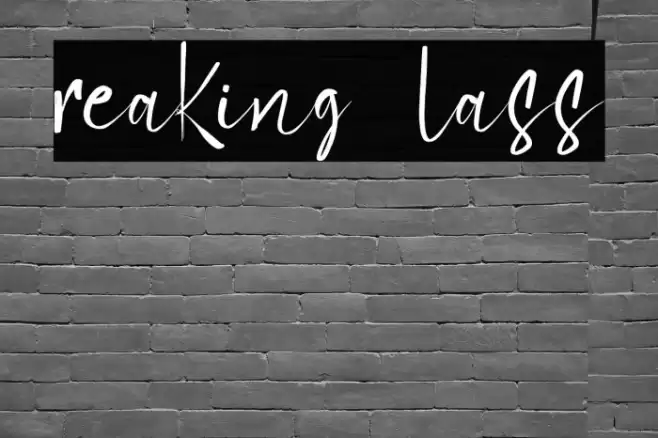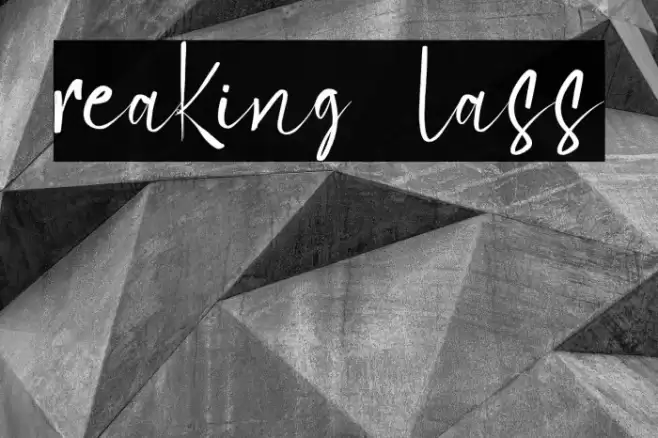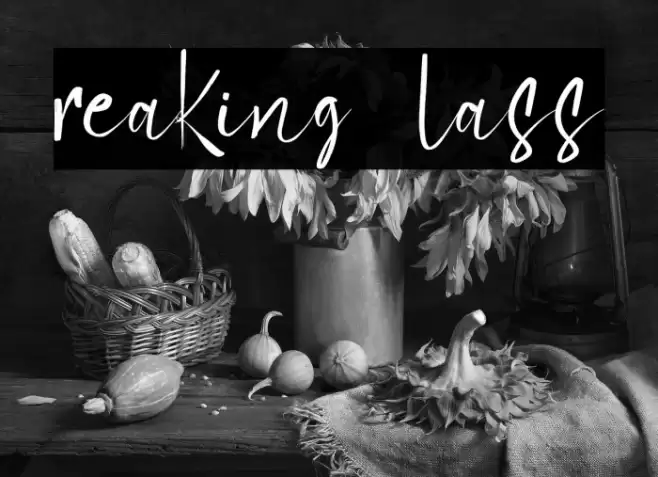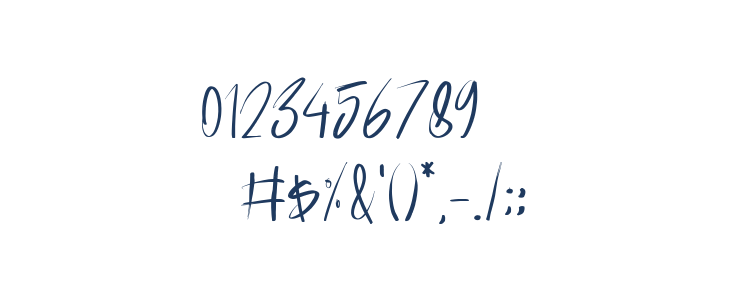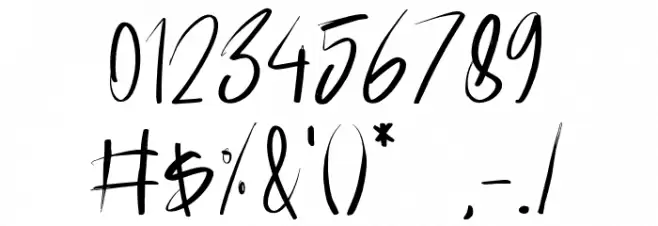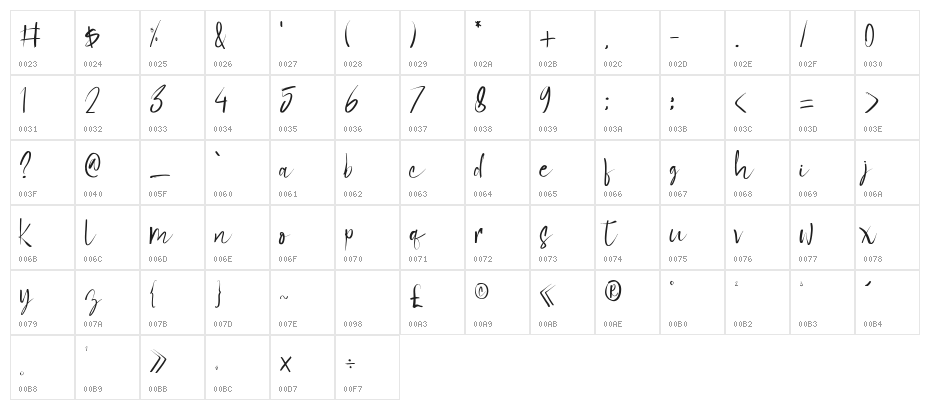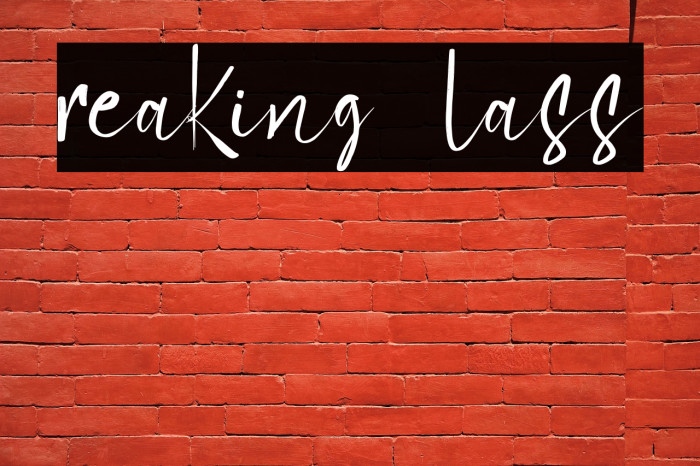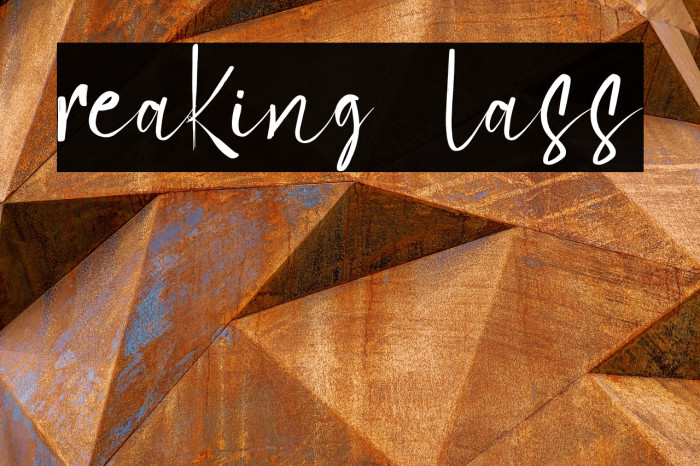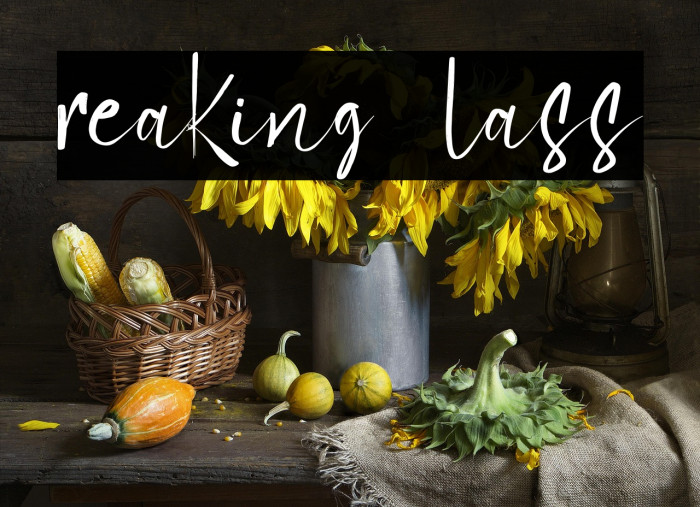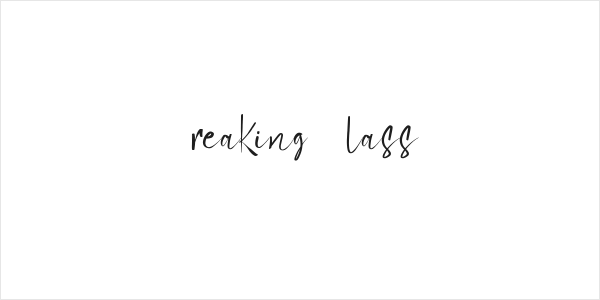
Breaking Glass Font
Breaking Glass Description
This font exudes a dynamic and expressive handwritten style, characterized by its fluid and organic strokes. The letters are crafted with a sense of motion and spontaneity, giving it a lively and artistic appearance. The varying thickness in the strokes adds a touch of elegance and sophistication, while the slightly irregular shapes contribute to its unique charm. The font maintains a balance between readability and artistic flair, making it suitable for creative and informal applications. The numerals and special characters are designed with the same attention to detail, ensuring consistency across the entire typeface.
A dynamic and expressive handwritten font with fluid, organic strokes from Regular fonts.
- Proposed Projects: Ideal for wedding invitations, greeting cards, artistic branding, and personal projects that require a touch of elegance and creativity.
- Use Case: Logos, Invitations, Artistic projects